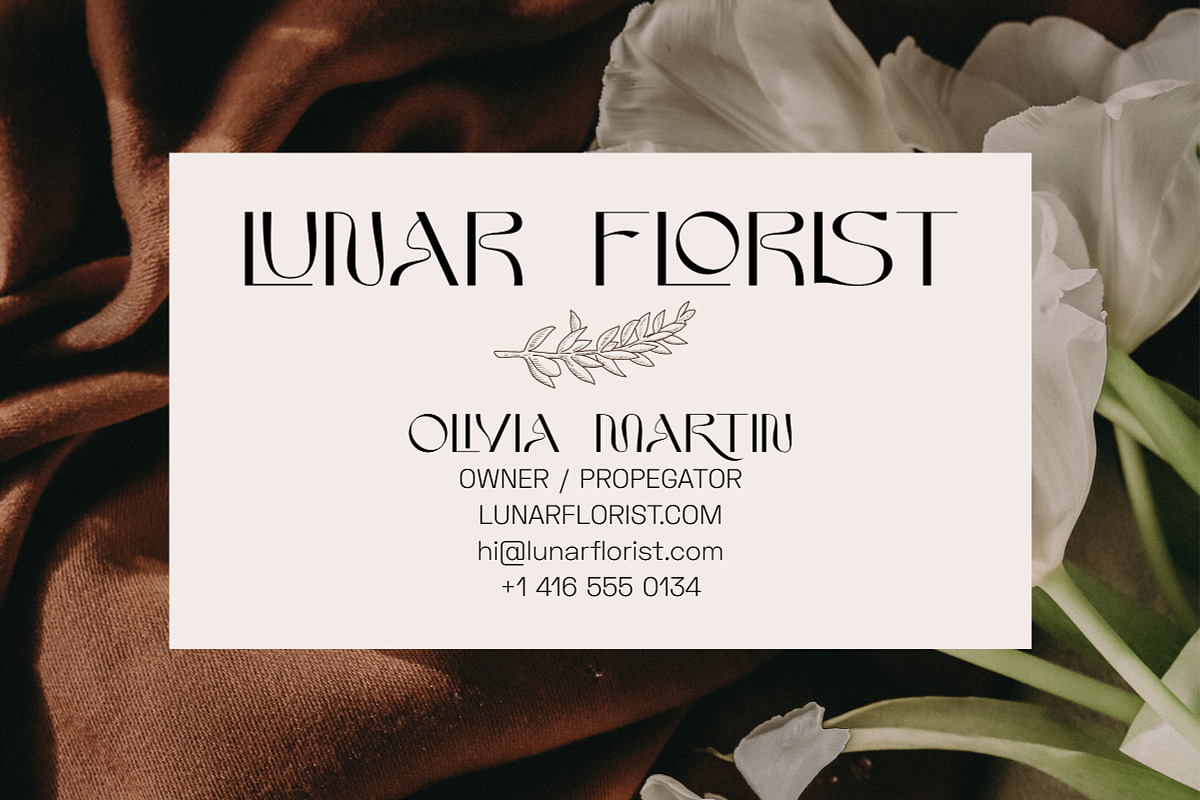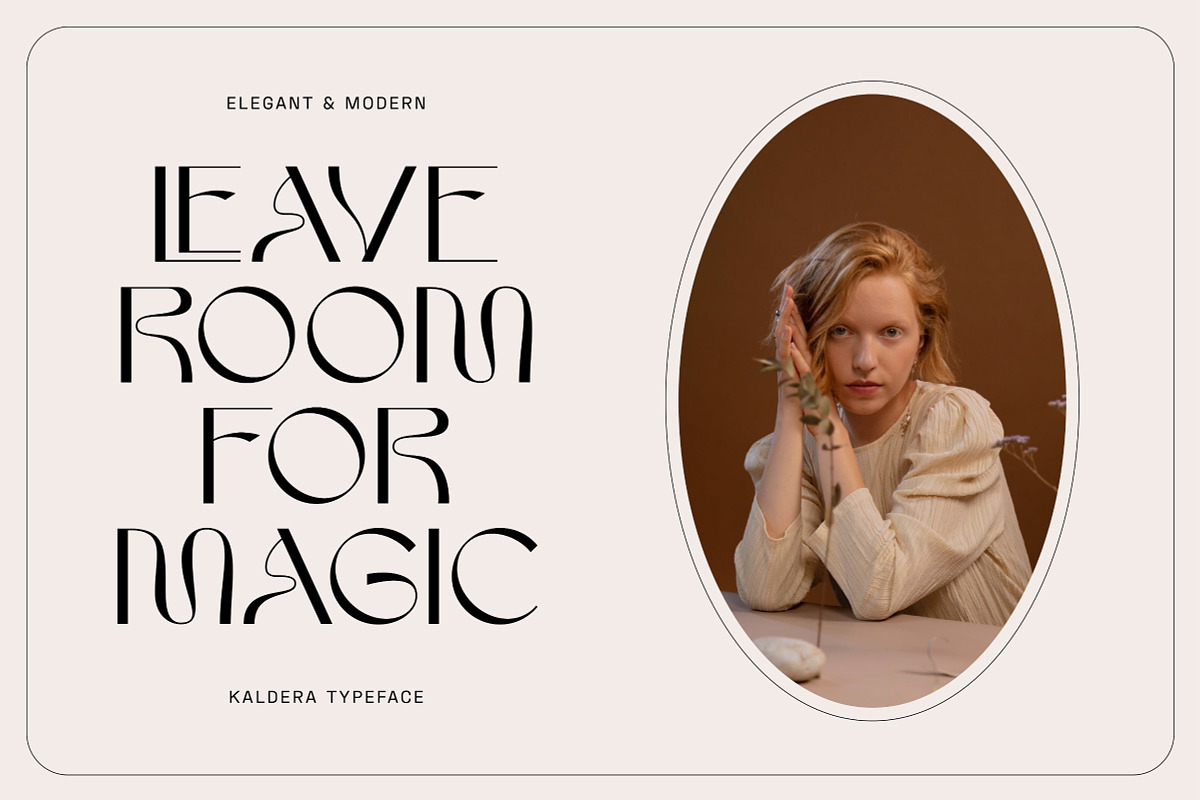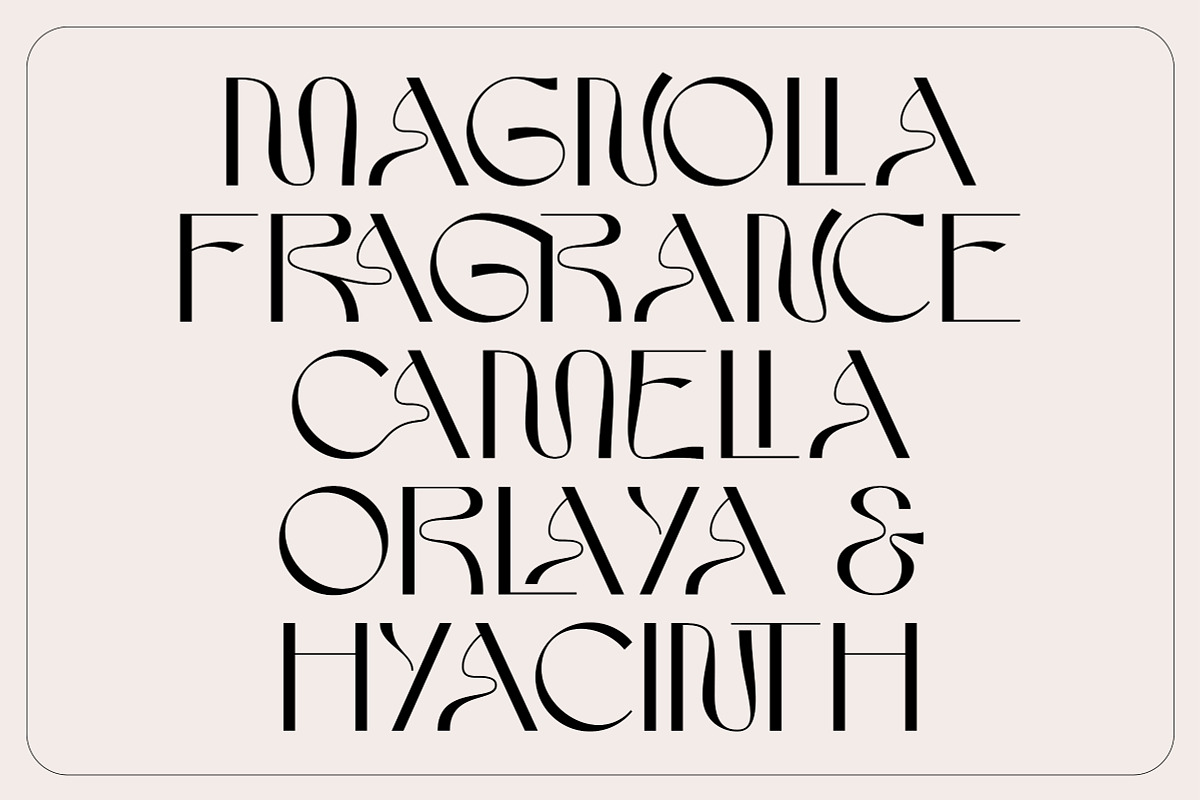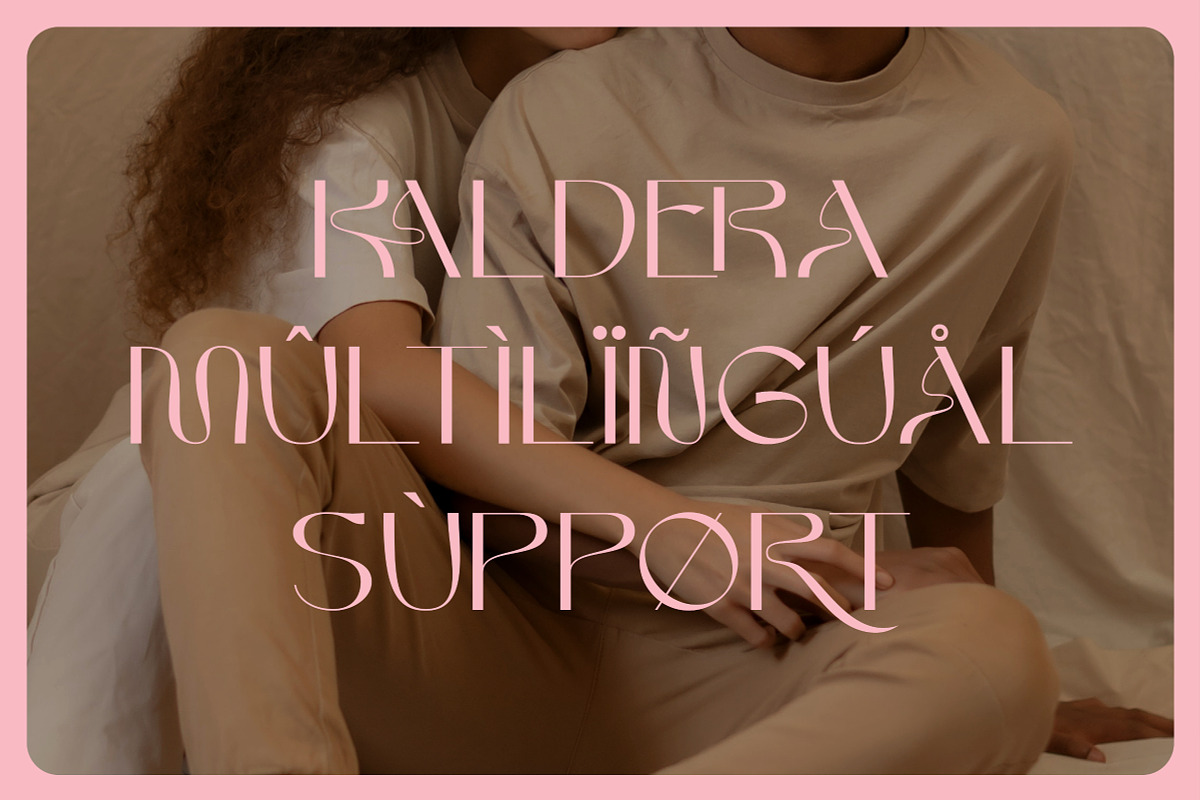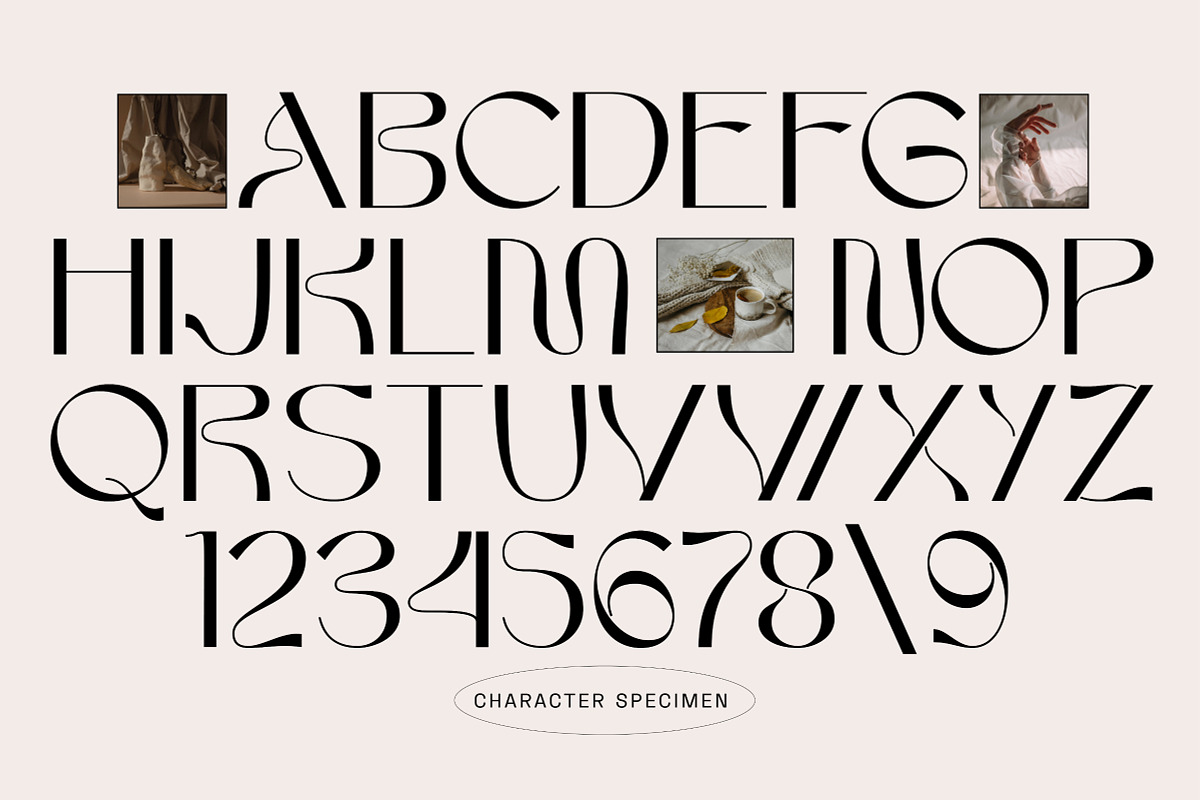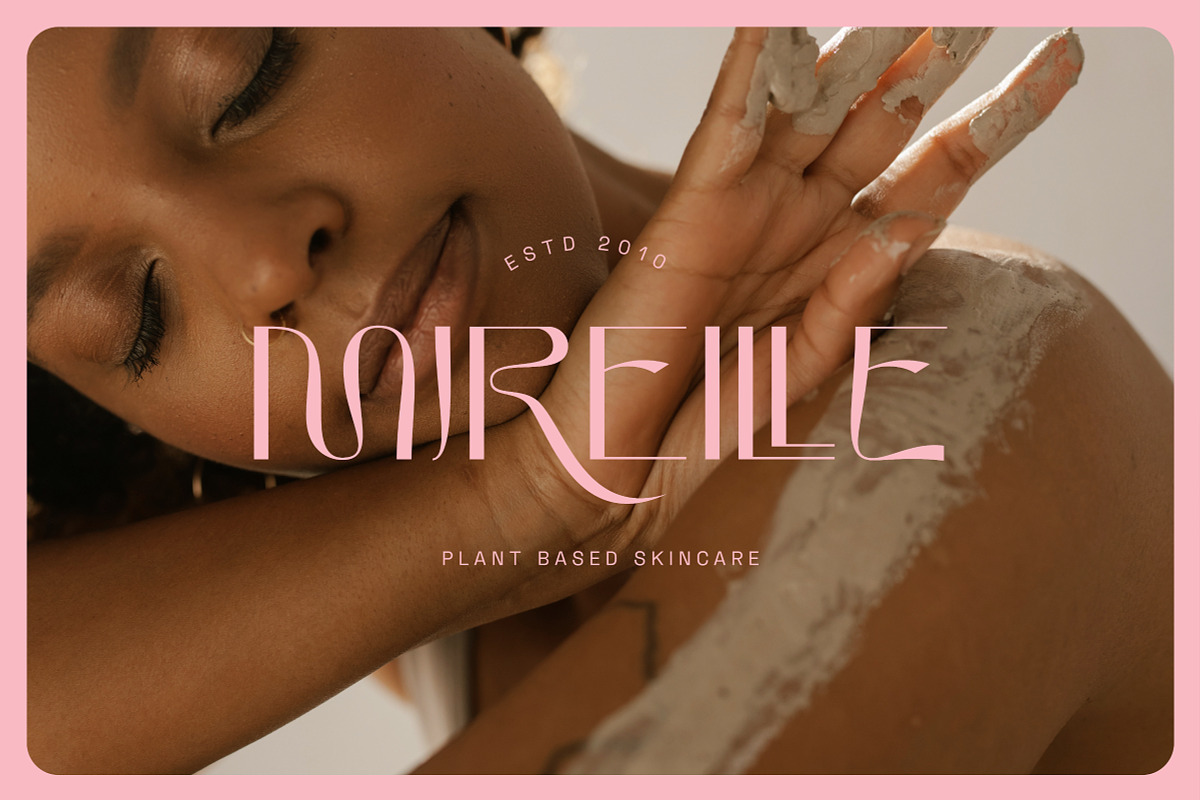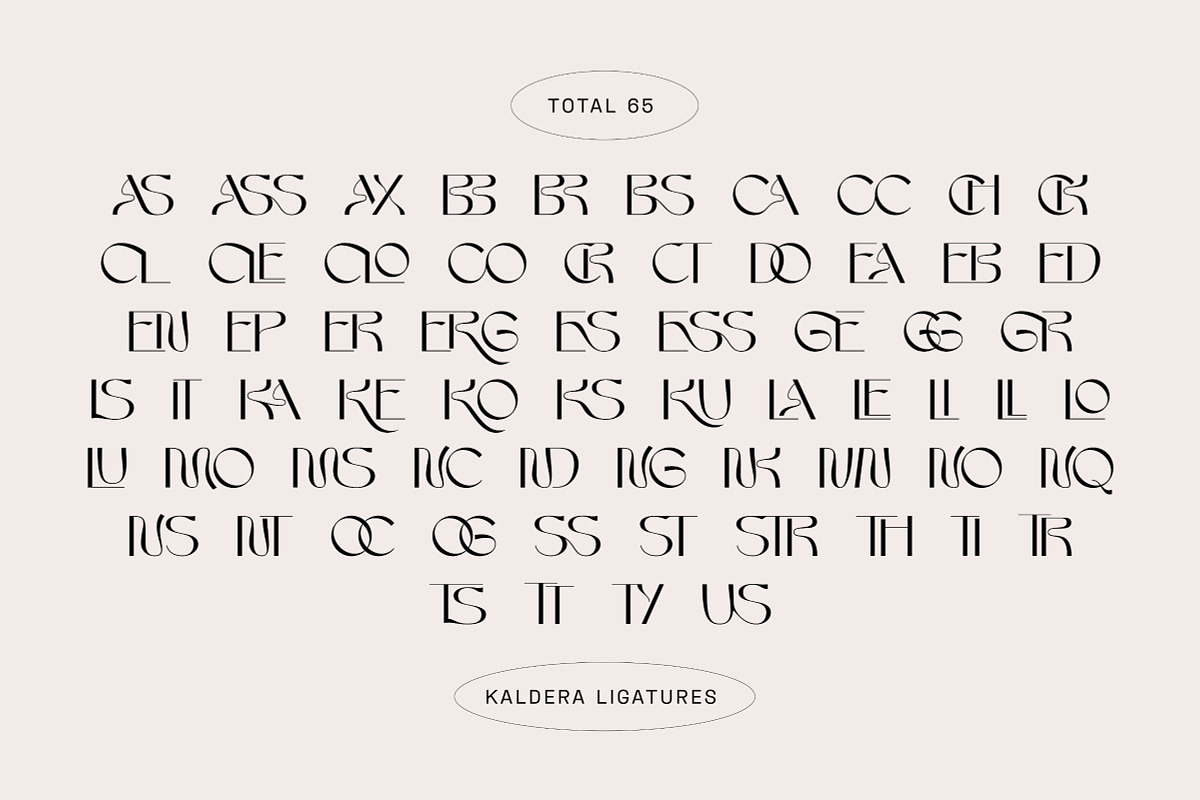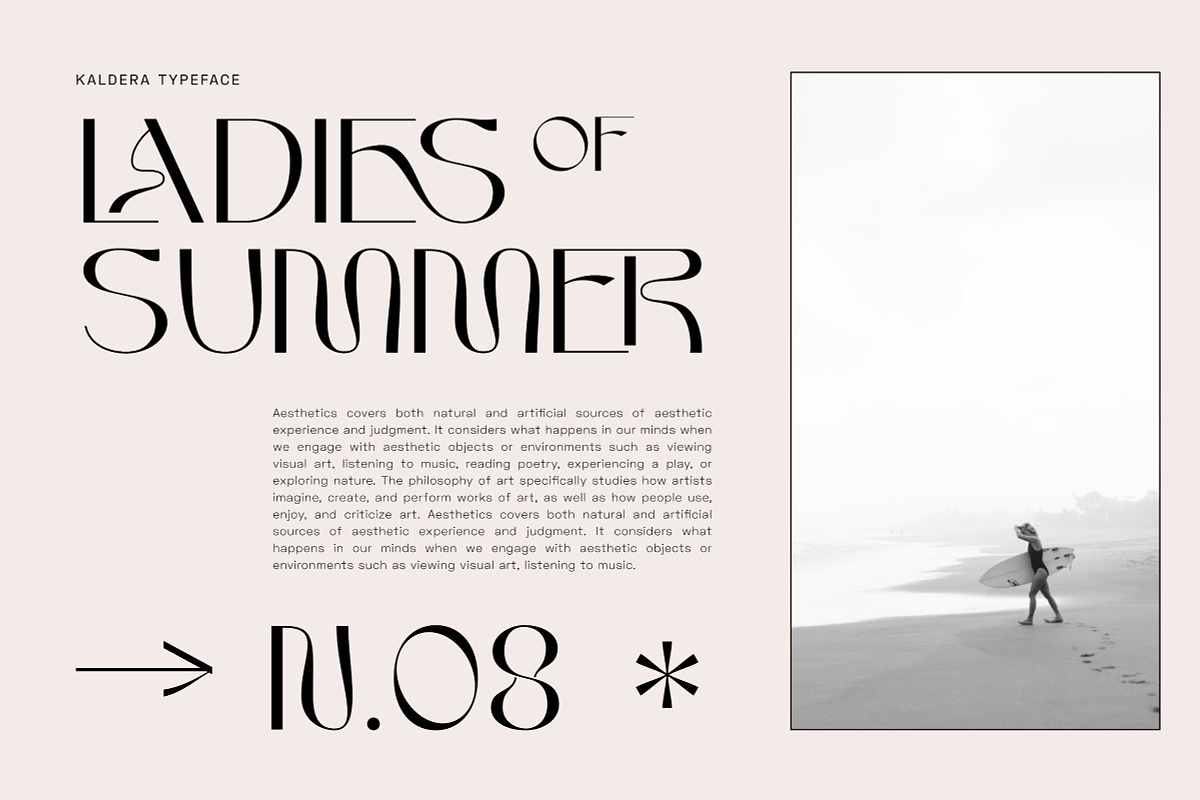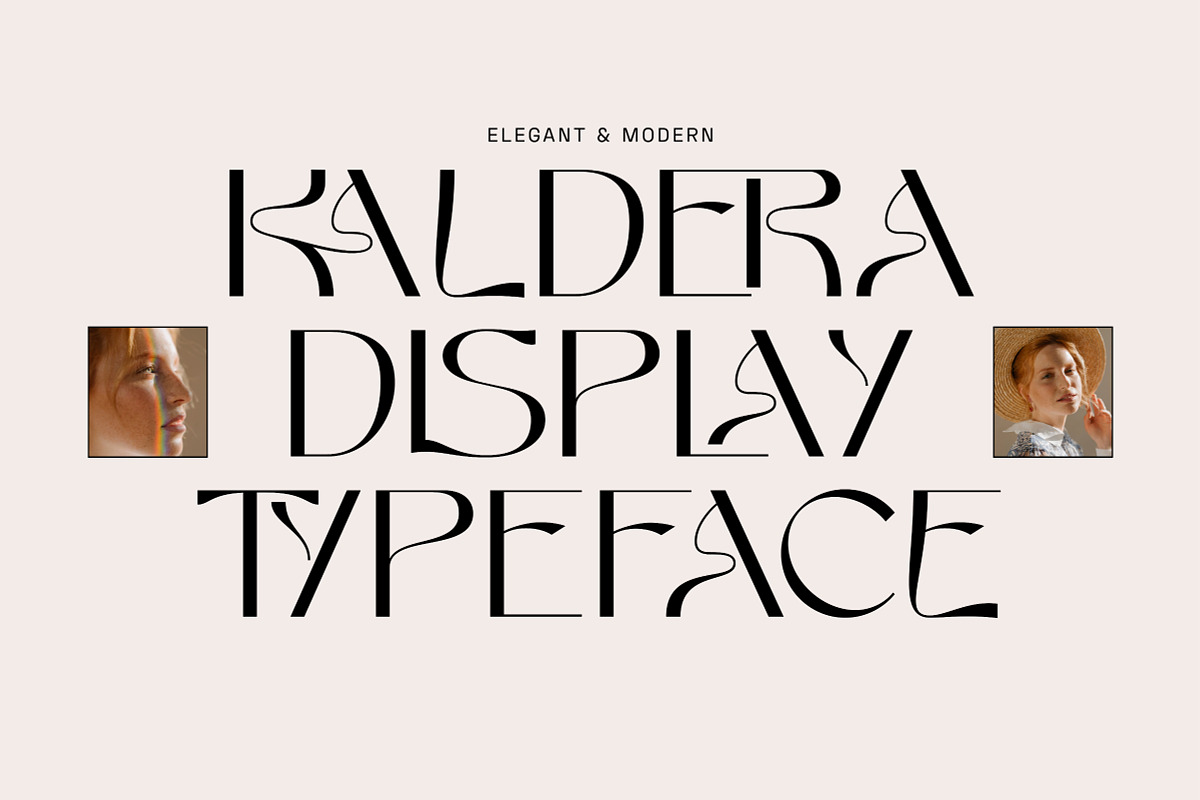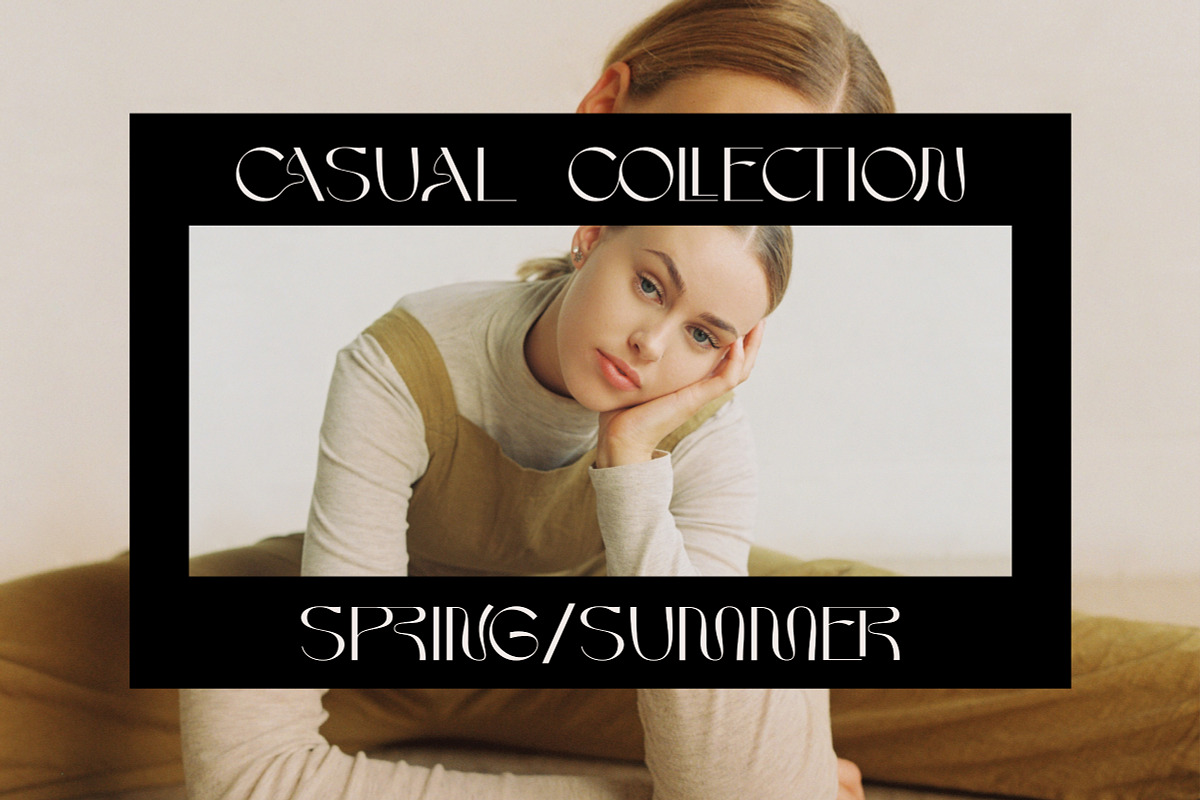
Kaldera - Modern Sans Serif Display
Kaldera is a unique modern sans serif display font with wavy characters that really stand out.
This font is great for big headline text that grabs people's attention. Perfectly suited for logos & branding, product packaging designs, advertising & marketing, and much more!